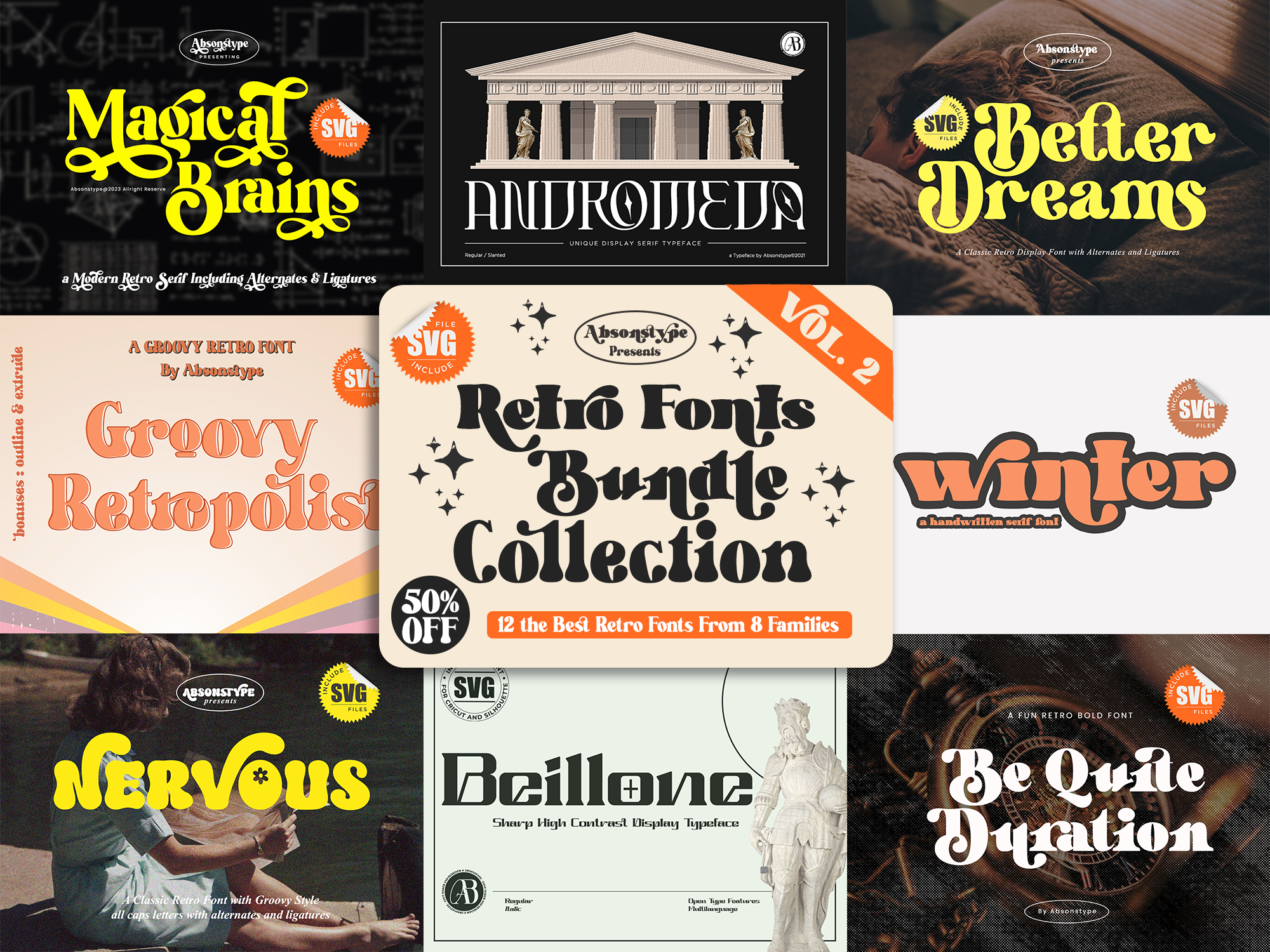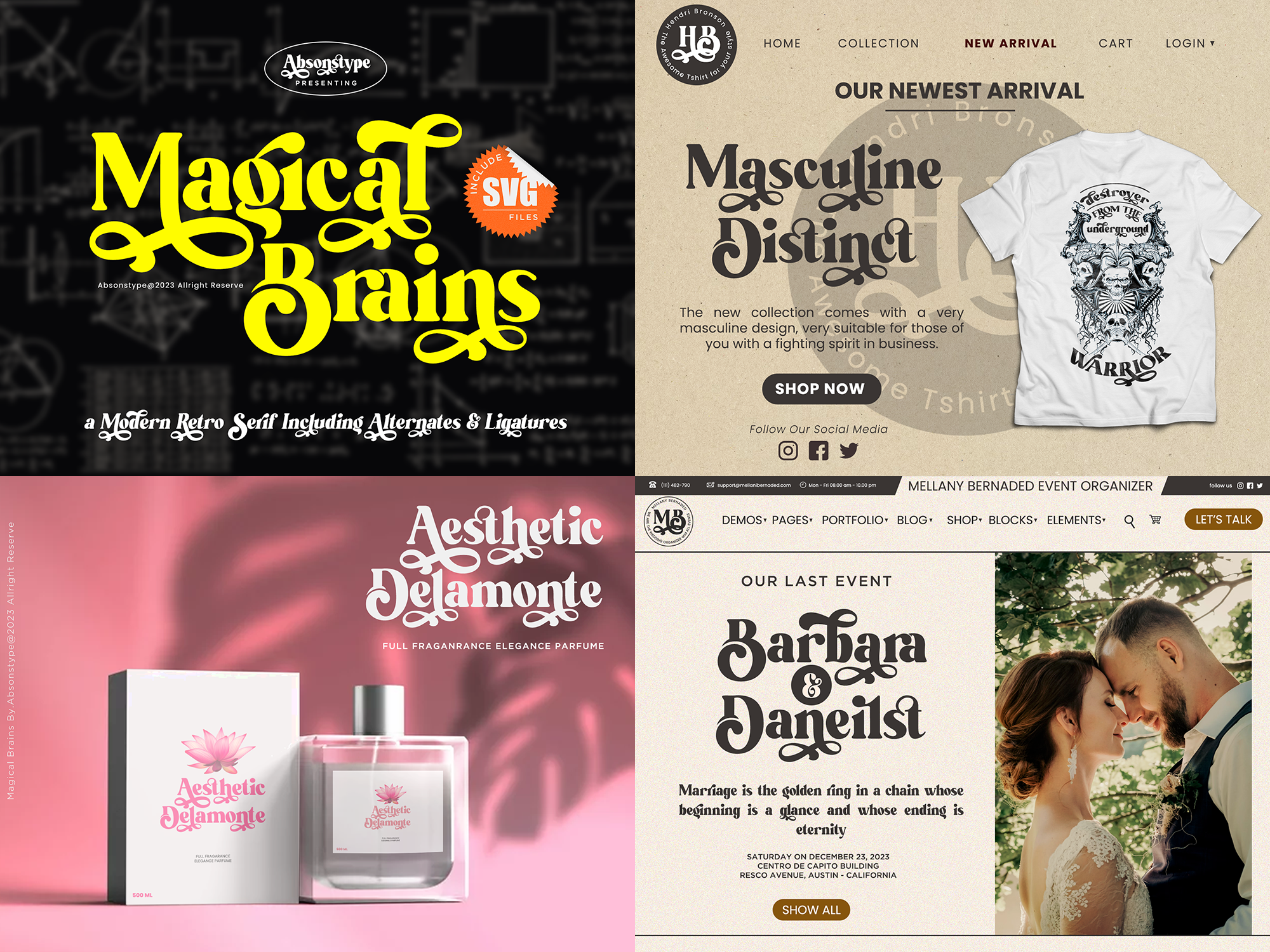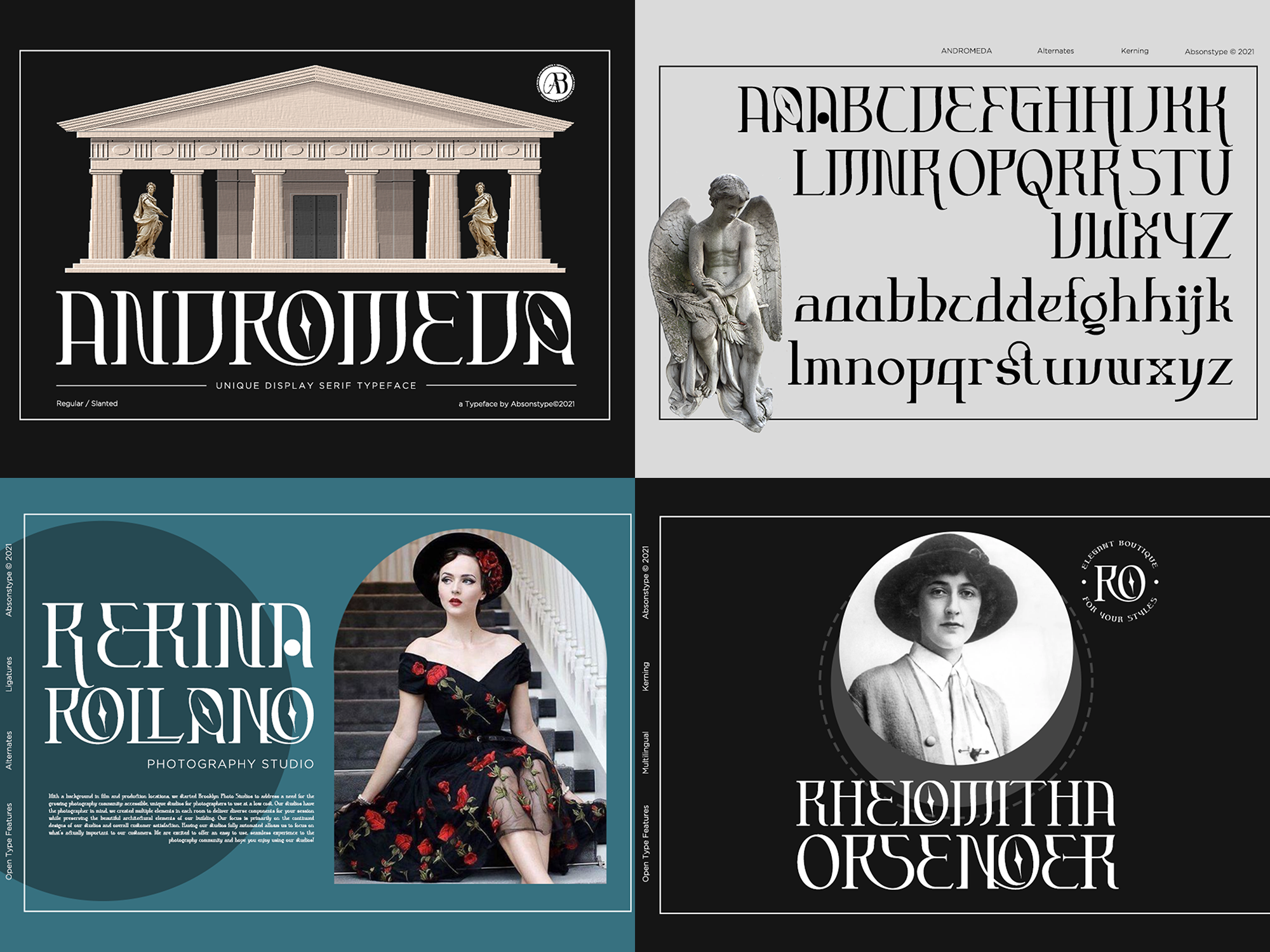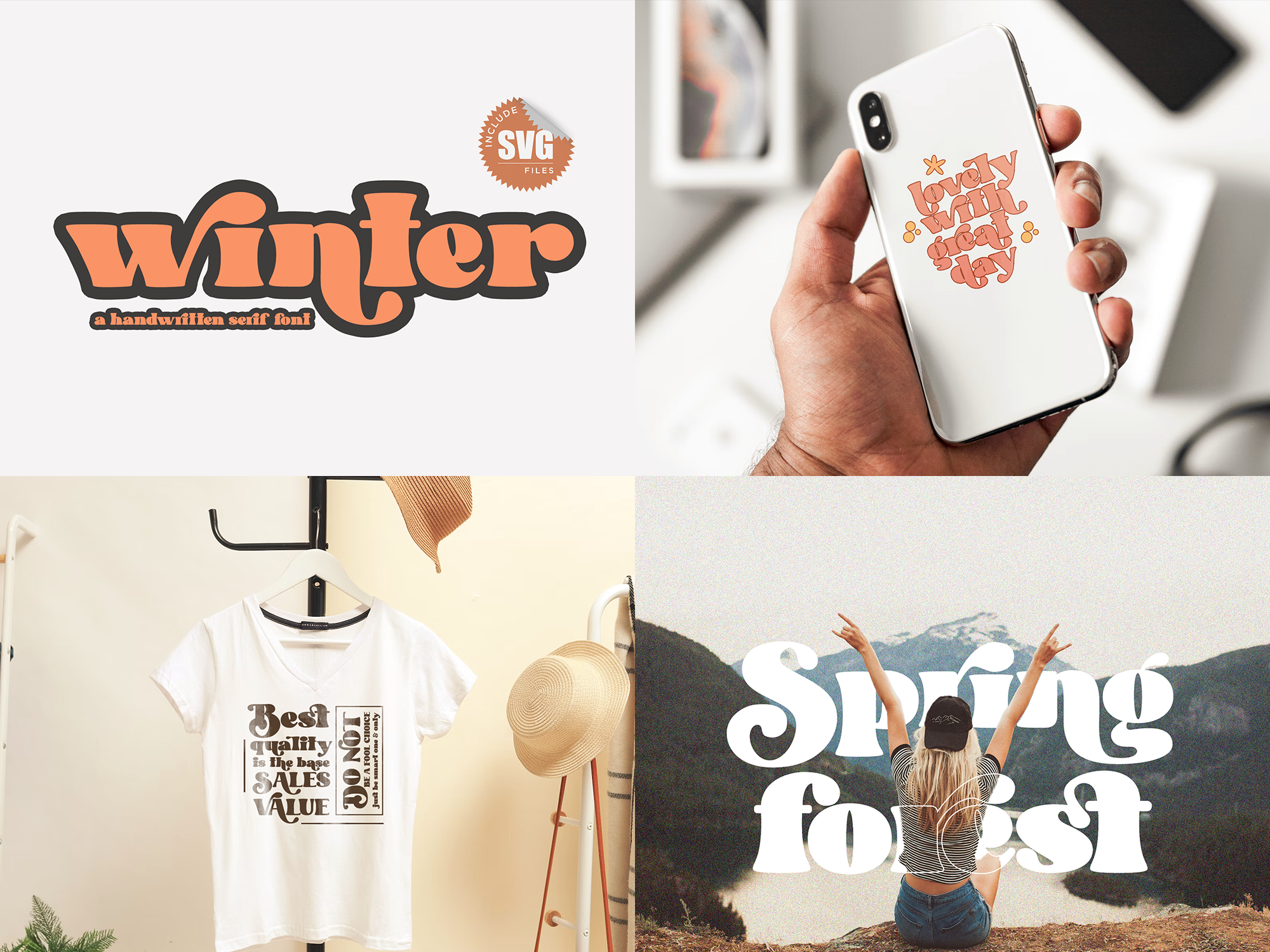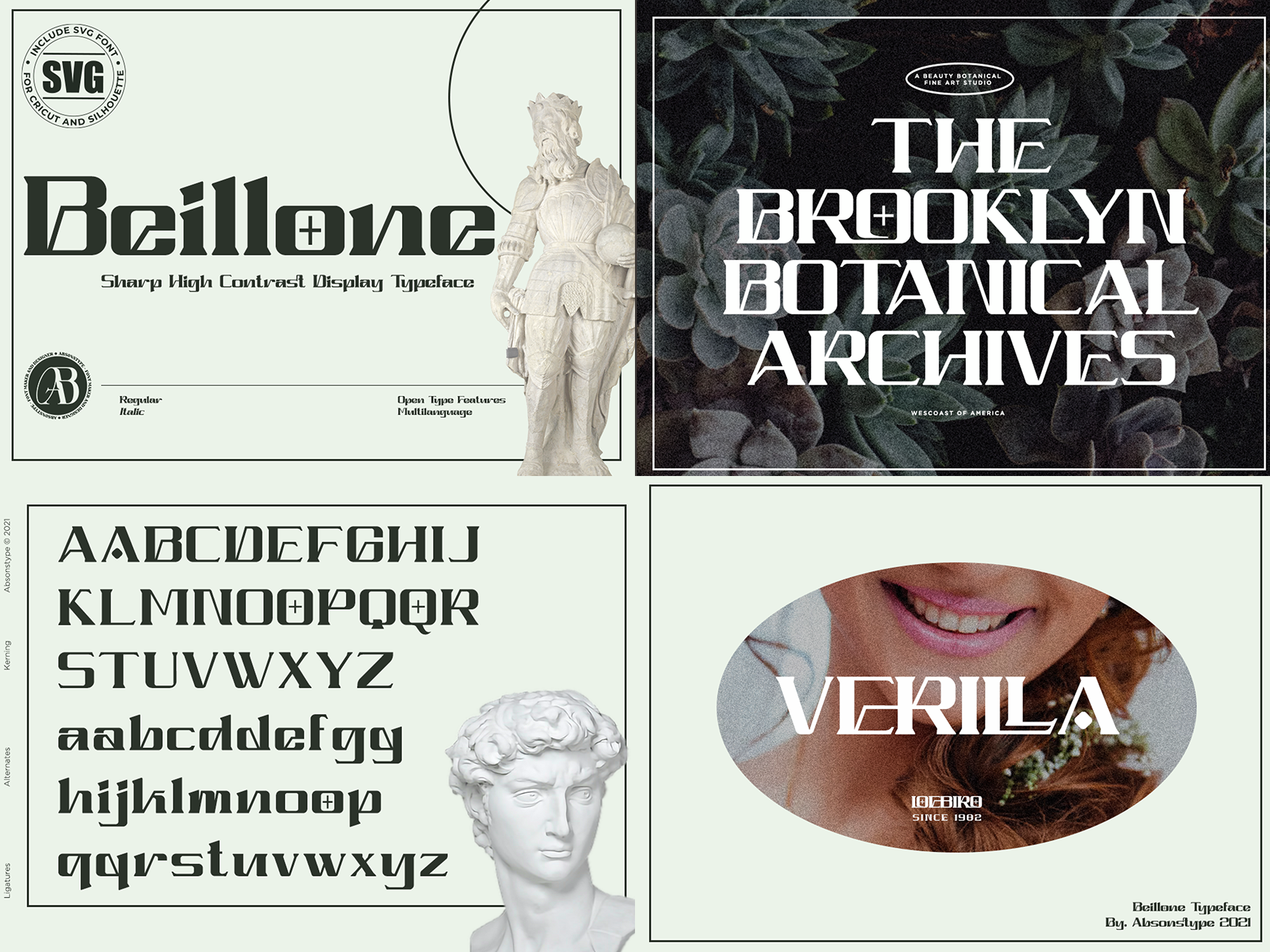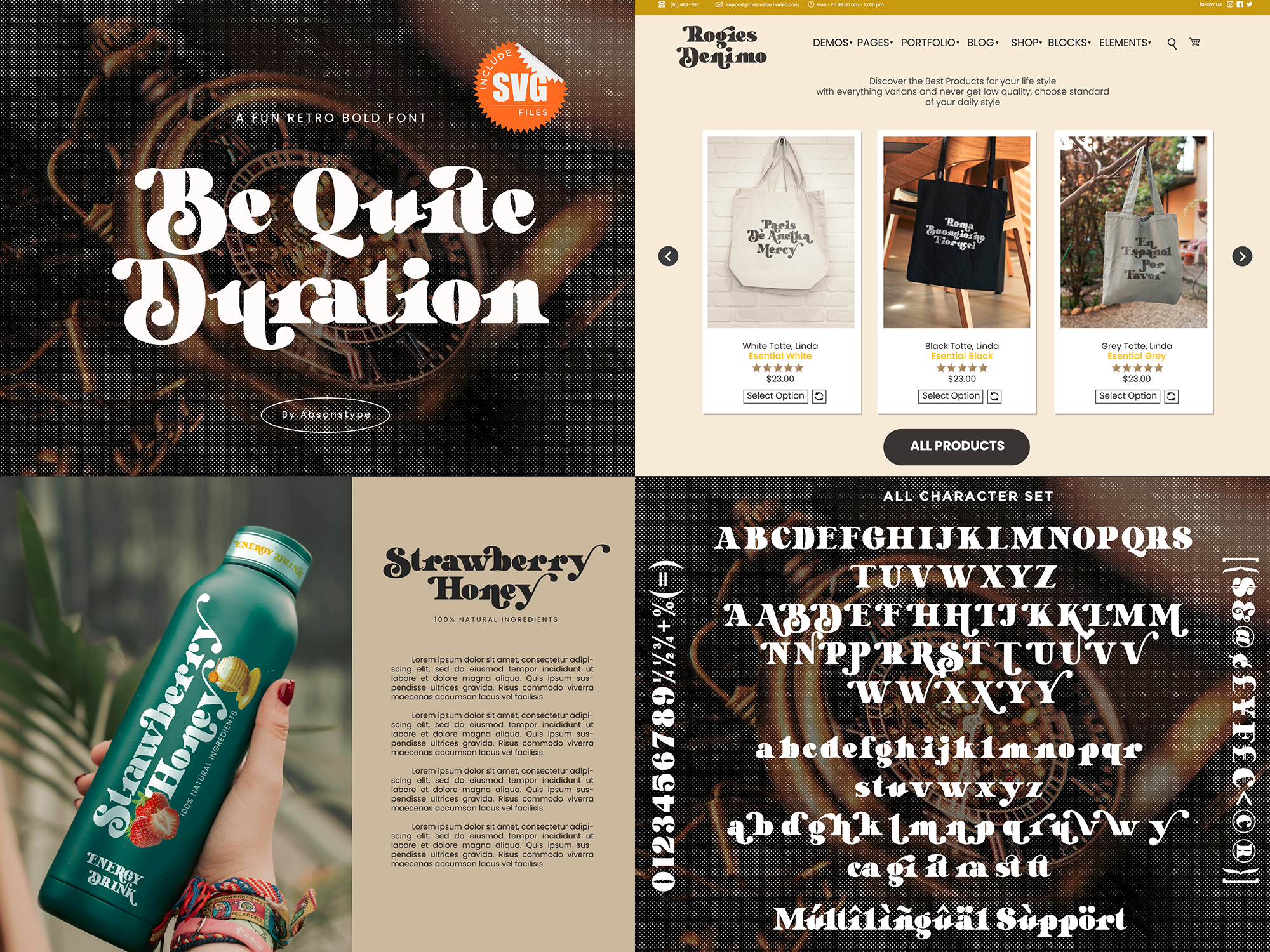
- Retro Font Bundle Collection 2
Magical Brains
ANDROMEDA
Better Dreams
Groovy Retropolist
winter
NERVOUS
Beillone
Be Quite Duration
THE BEST OFFER BUNDLE IN OUR SHOP IS FINALLY HERE! A lot of fonts for your projects are in one place. With this Retro Collection, you can design stylish logotypes for your clients, and create gorgeous branding, logos, blog, social media, wedding invitations, posters, magazines, and others.